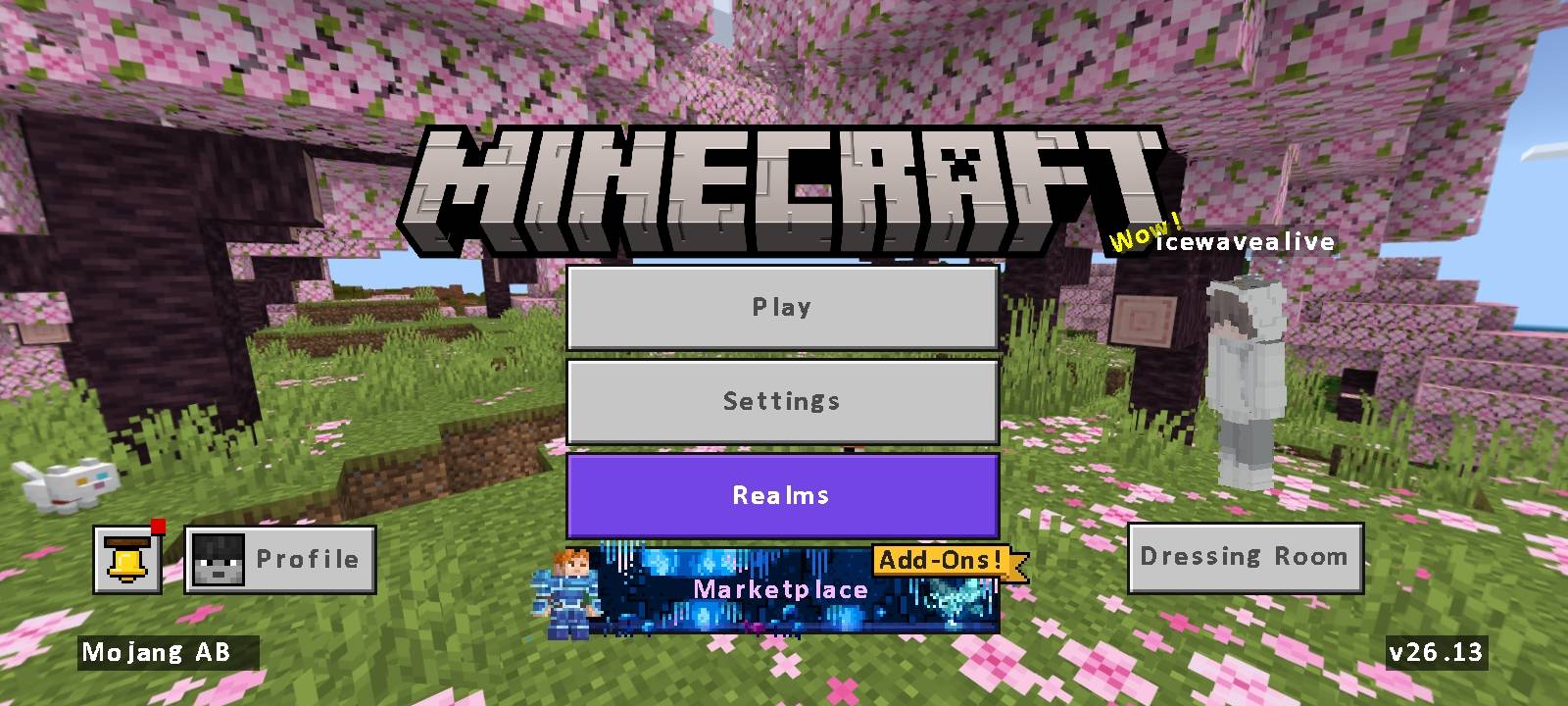
Upgrade your Minecraft Bedrock experience with Better Smooth Fonts!
This resource pack replaces the default font with a cleaner and smoother version, making text easier to read across menus, chat, inventories, and UI screens. The pack is designed to stay close to Minecraft's original style while providing a more polished and modern appearance.
✔ Smooth and clean font rendering
✔ Better readability in chat and menus
✔ Vanilla-friendly design